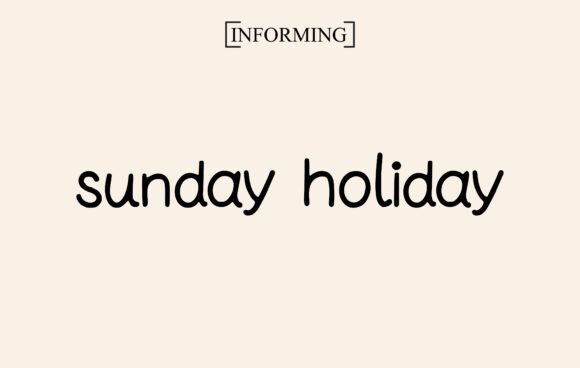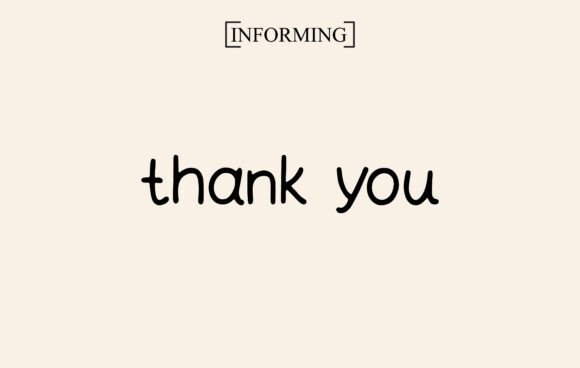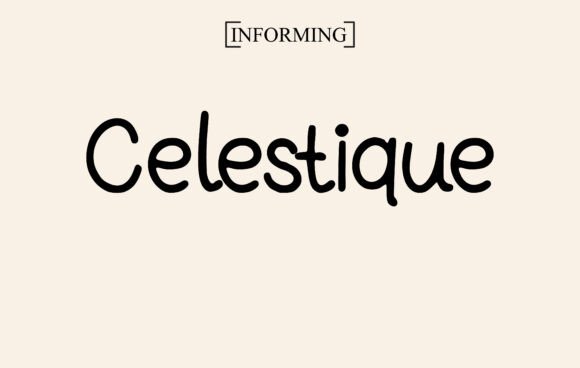
Introducing Celestique Font: Elevate Your Designs to New Heights
Are you tired of using the same old fonts in your designs? Look no further than Celestique, an expertly designed font that is sure to become a true favorite in your creative arsenal. With its perfect blend of legibility and style, Celestique is the perfect choice for a wide range of design projects, from magazine headlines to t-shirts, social media graphics, branding, wedding invitations, and more.
The Perfect Balance of Style and Legibility
One of the standout features of Celestique is its exceptional legibility. Whether you’re using it as a title font or for body text, Celestique is easy to read and understand, making it perfect for designs where clarity is key. At the same time, Celestique is also a stylish font that adds a touch of sophistication and elegance to any design. Its unique character and charm make it sure to grab attention and leave a lasting impression.
So, what can you use Celestique for? The possibilities are endless! Here are just a few ideas to get you started:
- Magazine Headlines: Use Celestique to create eye-catching headlines that draw readers in and make your magazine stand out.
- T-Shirts: Add a touch of style and personality to your t-shirt designs with Celestique.
- Social Media: Use Celestique to create engaging social media graphics that grab attention and drive engagement.
- Branding: Establish your brand’s identity with Celestique, a font that exudes professionalism and sophistication.
- Wedding Invitations: Make your wedding invitations truly special with Celestique, a font that adds a touch of romance and elegance.
- Cards: Use Celestique to create beautiful greeting cards that are sure to impress.
Why Choose Celestique?
So, why should you choose Celestique over other fonts? Here are just a few reasons:
- Unique Character: Celestique has a unique character that sets it apart from other fonts.
- Exceptional Legibility: Celestique is easy to read and understand, making it perfect for designs where clarity is key.
- Versatility: Celestique can be used for a wide range of design projects, from titles to body text.
- Elegance: Celestique adds a touch of sophistication and elegance to any design.
Tips for Using Celestique
Here are a few tips for getting the most out of Celestique:
- Experiment with Different Sizes: Celestique looks great in a variety of sizes, from large titles to smaller body text.
- Play with Color: Celestique looks great in a range of colors, so don’t be afraid to experiment and find the perfect hue for your design.
- Pair it with Other Fonts: Celestique pairs well with a range of other fonts, so feel free to get creative and try out different combinations.
In conclusion, Celestique is a truly exceptional font that is sure to become a favorite in your creative arsenal. With its perfect blend of style, legibility, and versatility, Celestique is the perfect choice for a wide range of design projects. Whether you’re a designer, crafter, or simply someone who loves to create, Celestique is sure to help you take your designs to new heights. So why wait? Give Celestique a try today and see the difference for yourself!